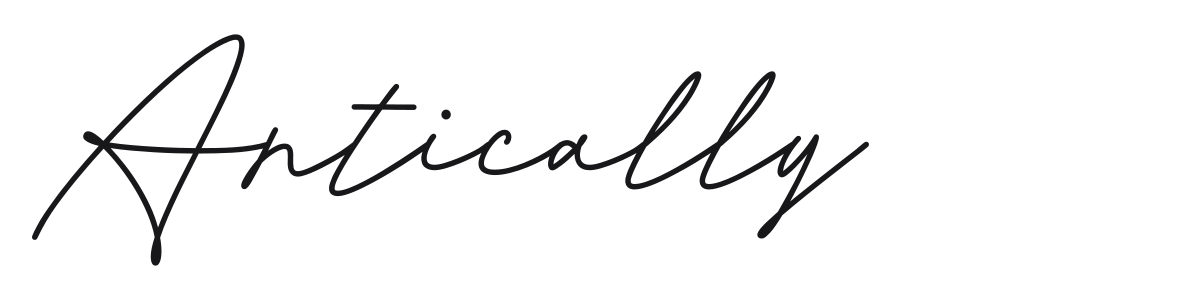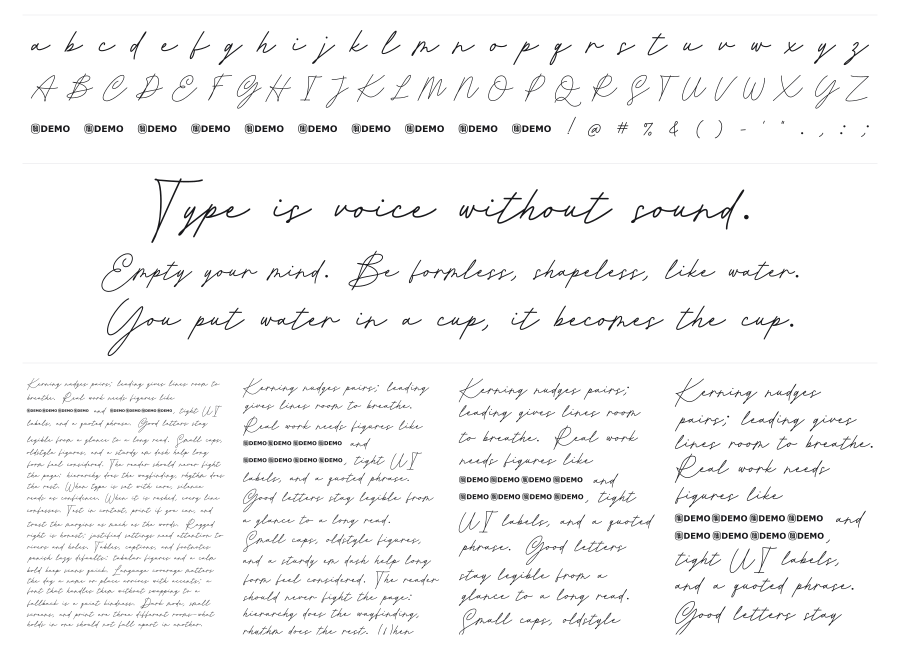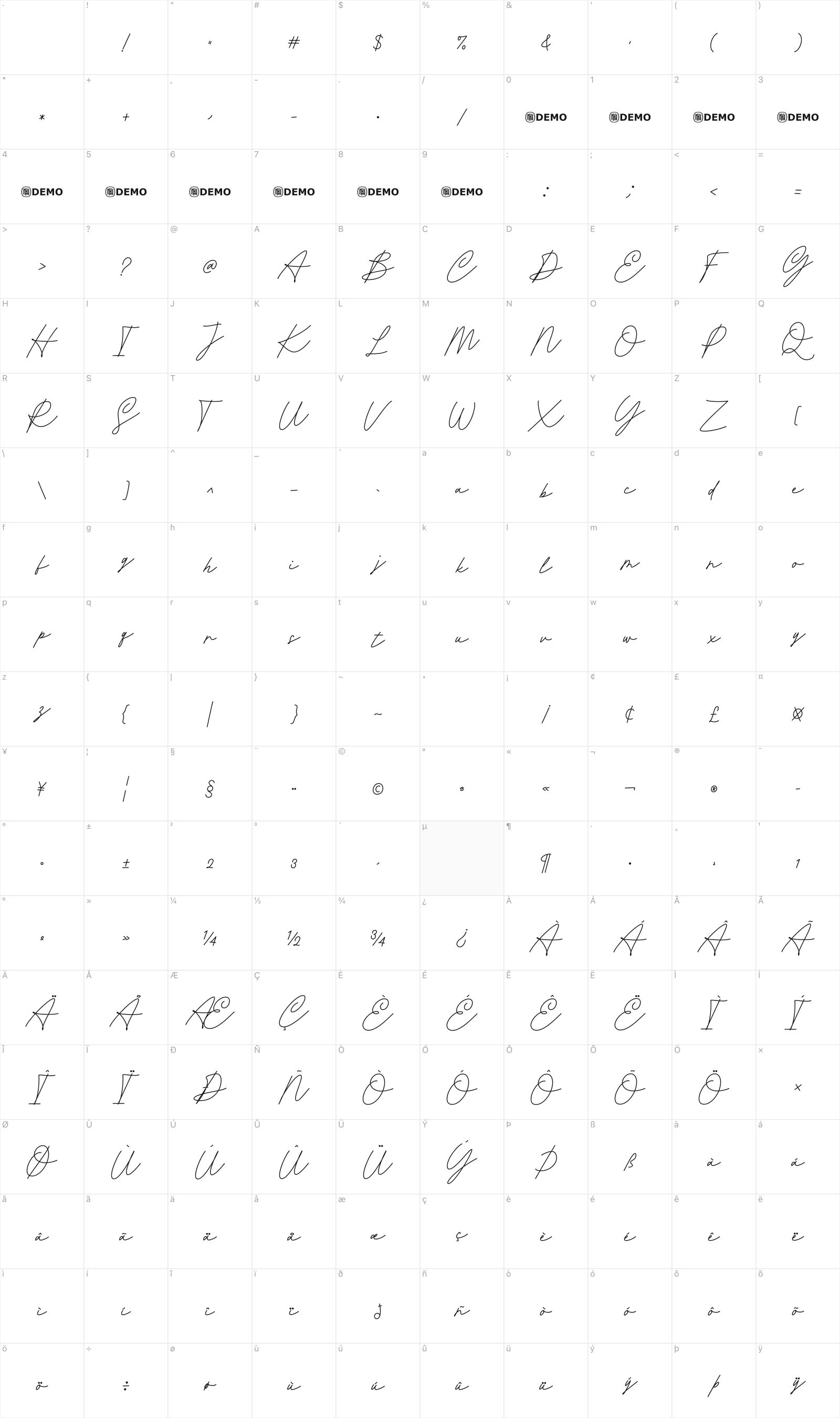
Antically
Antically is a casual cursive script with long, fluid connecting strokes and a naturally relaxed hand. The thin, near-monoweight lines and forward lean give it a signature-like quality that feels genuine rather than polished. It works best at large sizes for logos, packaging headers, and lifestyle branding.